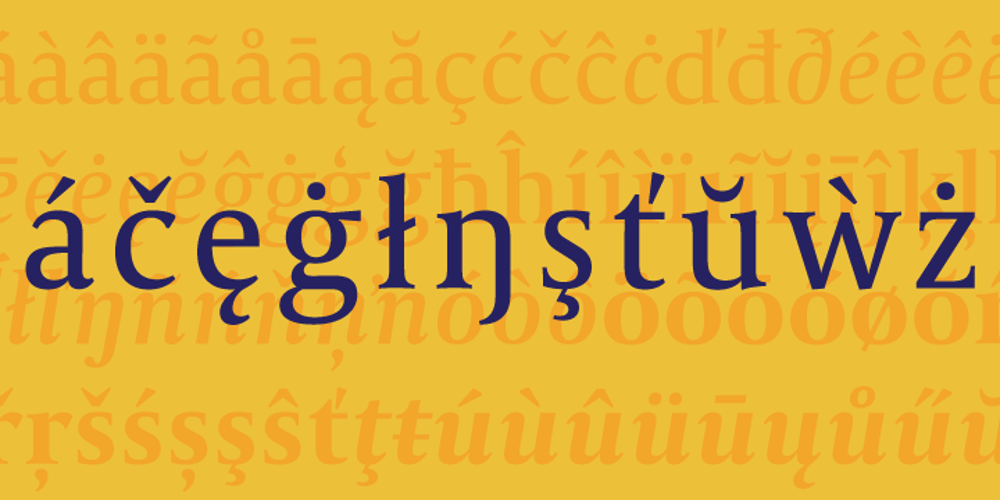
Capitolium 2 Font Family was designed by Gerard Unger and published by TypeTogether. Capitolium 2 contains 19 styles and family package options. Capitolium was designed in 1998 at the request of the Agenzia romana per la preparatione del Giubileo for the Jubilee of the Roman Catholic Church in 2000. This type design was the central part of the project for a wayfinding and information system to guide pilgrims and tourists through Rome. Capitolium also continues Rome’s almost uninterrupted two-thousand-year-old tradition of public lettering . It is a modern typeface for the twenty-first century and strongly related to the traditions of Rome. Soon after the completion of this project Unger began contemplating the possibility of bringing the atmosphere of this design to newspapers. Though Capitolium works well in most modern production processes and also on screens, it is too fragile for newsprint. For newspapers sturdier shapes were required as well as more characters to a line of text, and Capitolium News has a bigger x-height than Capitolium. Capitolium News is a thoroughly modern newsface, with classic letterforms linked to a strong tradition. Capitolium News for running text comes in the variations regular, italic, semibold, semibold italic, bold and bold italic. As is possible with most of Unger’s type designs, Capitolium News can be condensed and expanded without any harm to the letterforms. The update to this beautiful font family, Capitolium News, includes the addition of over 250 glyphs featuring full Latin A language support, new ligatures, 4 sets of numerals, arbitrary fractions and superiors/inferiors. Furthermore, kerning was added and fine tuned for better performance.